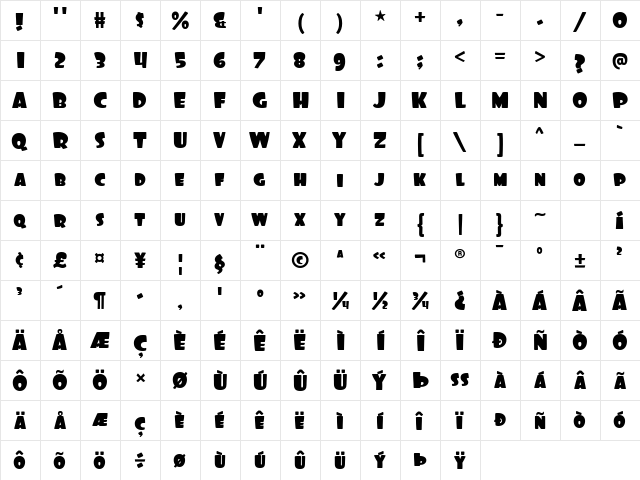
Foo Regular Font Preview
Foo Regular
Design Context for Foo Typeface
Foo is a composed and adaptable typeface that performs quietly and consistently across a wide range of design contexts.